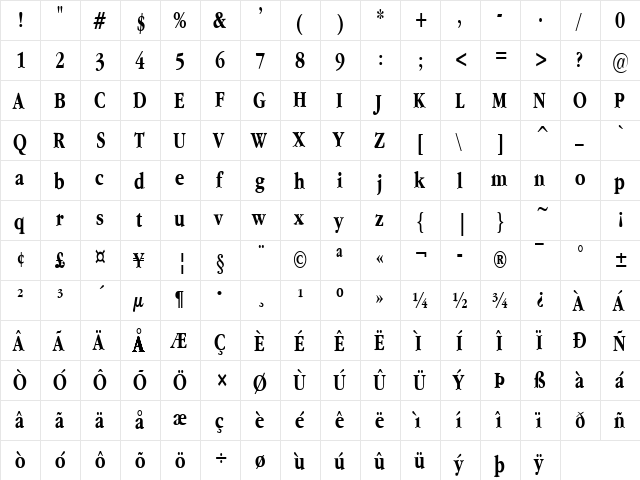
Garamand Condensed Bold Font Preview
Garamand Condensed Bold
Design Context for Garamand Condensed Typeface
Garamand Condensed is a composed and adaptable typeface that performs quietly and consistently across a wide range of design contexts. Its bold stroke weight gives it real presence on the page. The condensed width makes it efficient for tight spaces without sacrificing legibility.